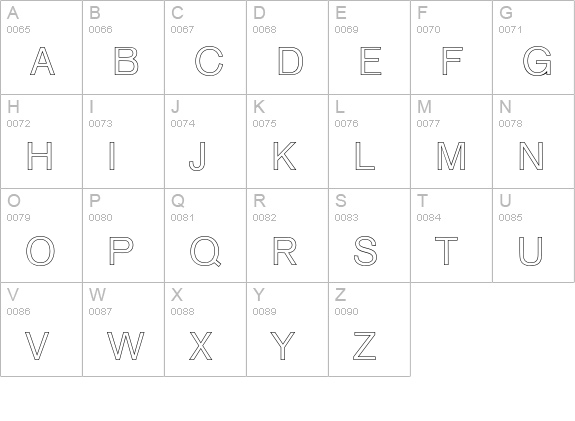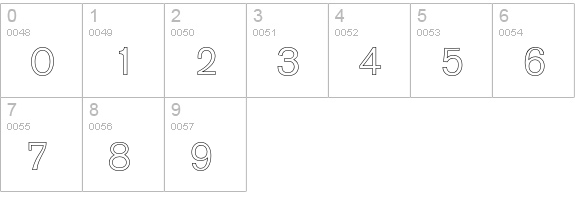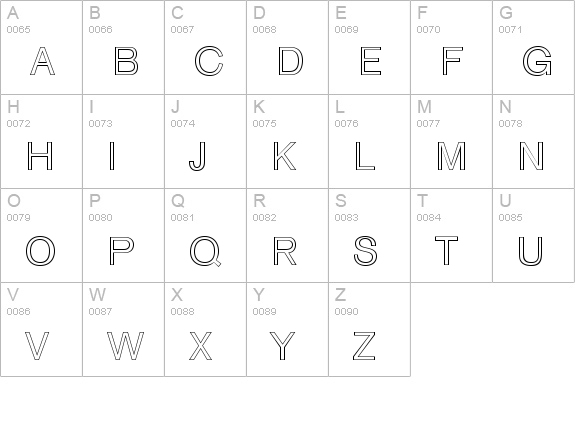
AG Old Face Outline Font Details
AG Old Face Outline font is a classic and elegant typeface that exudes a timeless charm. Its intricate outlines add a touch of sophistication to any design project, making it perfect for vintage-inspired creations or modern designs looking for a touch of nostalgia. This font is not only visually striking but also versatile, suitable for a wide range of applications such as branding, packaging, posters, and more. Its clean lines and distinctive style make it stand out while maintaining a sense of elegance and refinement. The best part is that AG Old Face Outline font is available for free download at FontsMarket.com. Now you can enhance your projects with this stunning typeface without any cost, making it a valuable addition to your font collection. Don't miss out on the opportunity to elevate your designs with this beautiful font that effortlessly combines tradition with modernity.